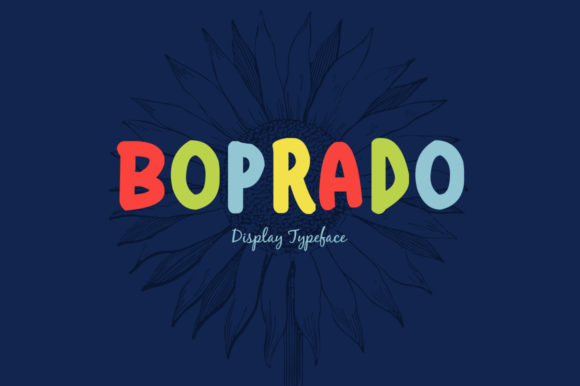
Step into the world of Boprado Font, a display font destined to turn your designs into captivating masterpieces. Embark on a typographic journey where fun and playfulness dance together, creating a symphony of visual delight.
Boprado's vivacious spirit shines through each letterform, inviting you to explore its boundless potential. Its playful personality lends itself perfectly to a myriad of creative endeavors, from stationery and logos to t-shirts and print designs. Unleash your imagination and let Boprado's energy elevate your designs to new heights.
Picture your designs adorned with Boprado's unique charm. Its versatility knows no bounds, making it an ideal choice for website headers, photo frames, and flyers. Its vibrant energy will infuse life into your music covers, posters, and image sliders, captivating your audience with its playful allure.
With Boprado Font by your side, you'll discover a world of creative possibilities. Its playful nature will engage your audience, leaving a lasting impression that keeps them coming back for more. Let Boprado be your font of choice for creating designs that resonate with your audience and leave a lasting impact. Embrace the Boprado experience and unlock the full potential of your creativity.